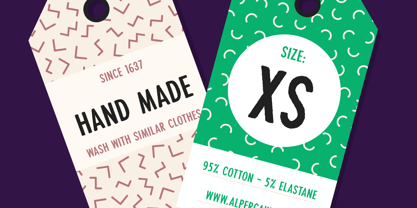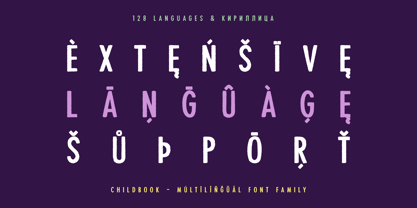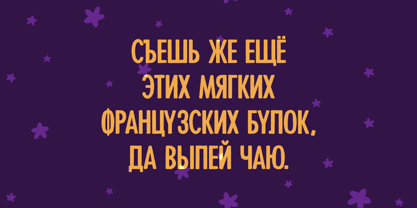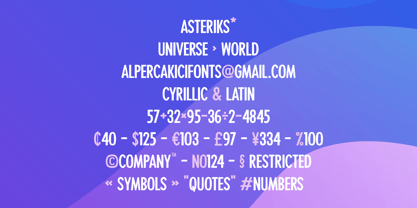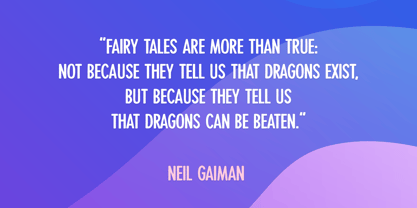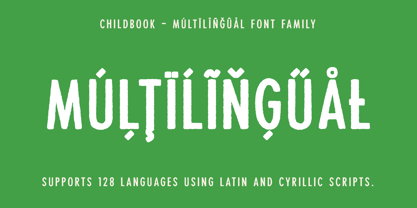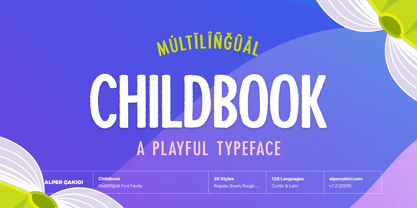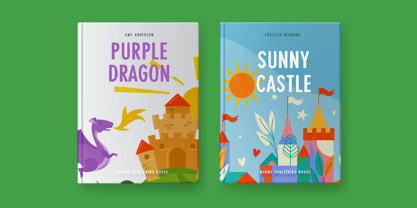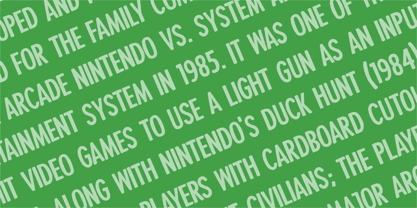
Childbook
The Childbook Font Family was designed by Alper Çakıcı and published by AlperCakici. Childbook contains 20 styles and family package options. More about this family
Childbook is a playful sans serif with rough, handcrafted edges designed to capture the energy of childhood creativity. Inspired by pencil sketches, chalkboards, brush strokes, and textured graphite, Childbook blends warmth with readability. Perfect for children’s books, educational materials, school branding, toy packaging, posters, comics, and friendly display typography, Childbook delivers character without sacrificing clarity. The family includes 20 expressive styles: Angular, Brush, Chalk, Eroded, Graphite, Liner, Pencil, Rough, Wax, Regular, and matching italics—giving designers a versatile toolkit for playful yet professional designs. Whether you’re crafting storybooks, classroom worksheets, playful branding, or textured headlines, Childbook brings imagination to life.